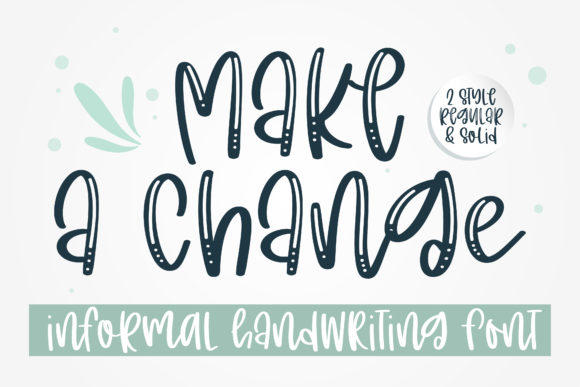
Prepare yourself for a typographic journey like no other with Make a Change Font, the ultimate script font family designed to turn your creative visions into tangible realities. Crafted with meticulous care by the renowned BitongType, this font is not just a collection of letters; it's a gateway to a world of limitless expression.
Step into the realm of Make a Change Font, where your words dance across the screen with a captivating rhythm, evoking emotions and leaving a lasting impression on your audience. Its playful and informal style, reminiscent of handwritten notes, adds a touch of warmth and authenticity to your designs, making them instantly relatable and engaging.
With Make a Change Font as your creative companion, the possibilities are boundless. Its natural flow and unique character lend themselves effortlessly to a multitude of design projects, from eye-catching logos and branding materials to heartfelt invitations and personal correspondence. Let your imagination run wild as you explore the endless opportunities this font presents.
Harness the power of Make a Change Font to elevate your designs to new heights. Its versatility knows no bounds, seamlessly adapting to a diverse range of applications. Whether you're crafting stunning social media posts, creating memorable marketing campaigns, or simply adding a personal touch to your everyday documents, this font will effortlessly elevate your work, leaving a lasting impact on all who encounter it.
Don't let your creativity be confined by ordinary fonts. Embrace the transformative power of Make a Change Font and witness the remarkable difference it brings to your designs. Its ability to effortlessly capture attention and convey emotions makes it the perfect choice for anyone seeking to make a statement and leave an indelible mark on the world.